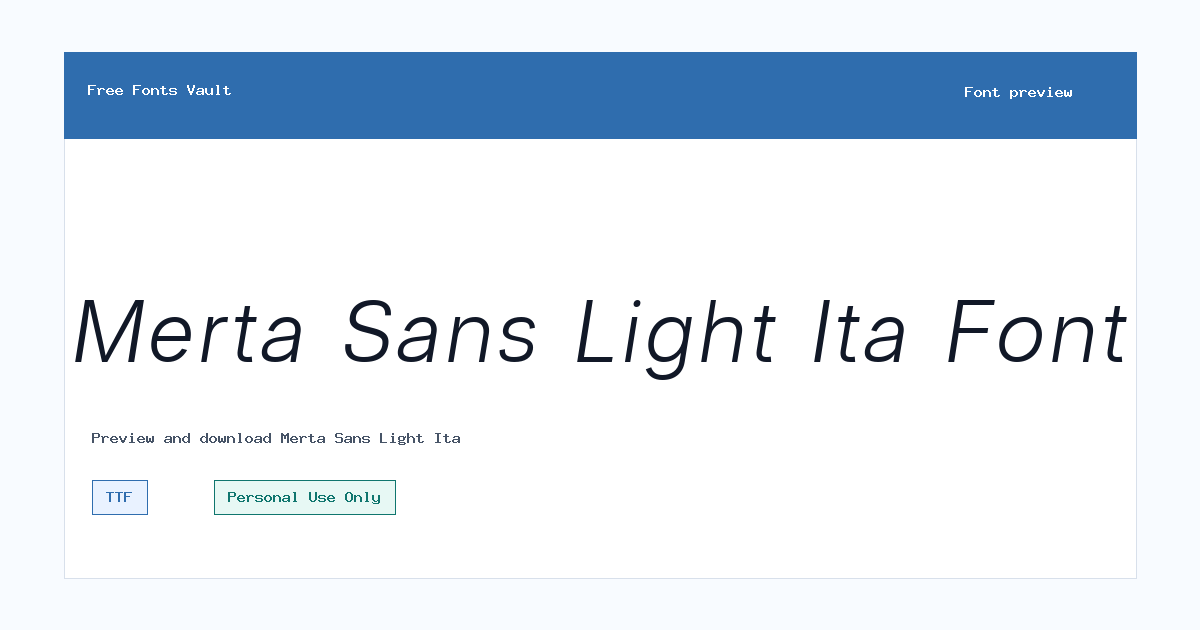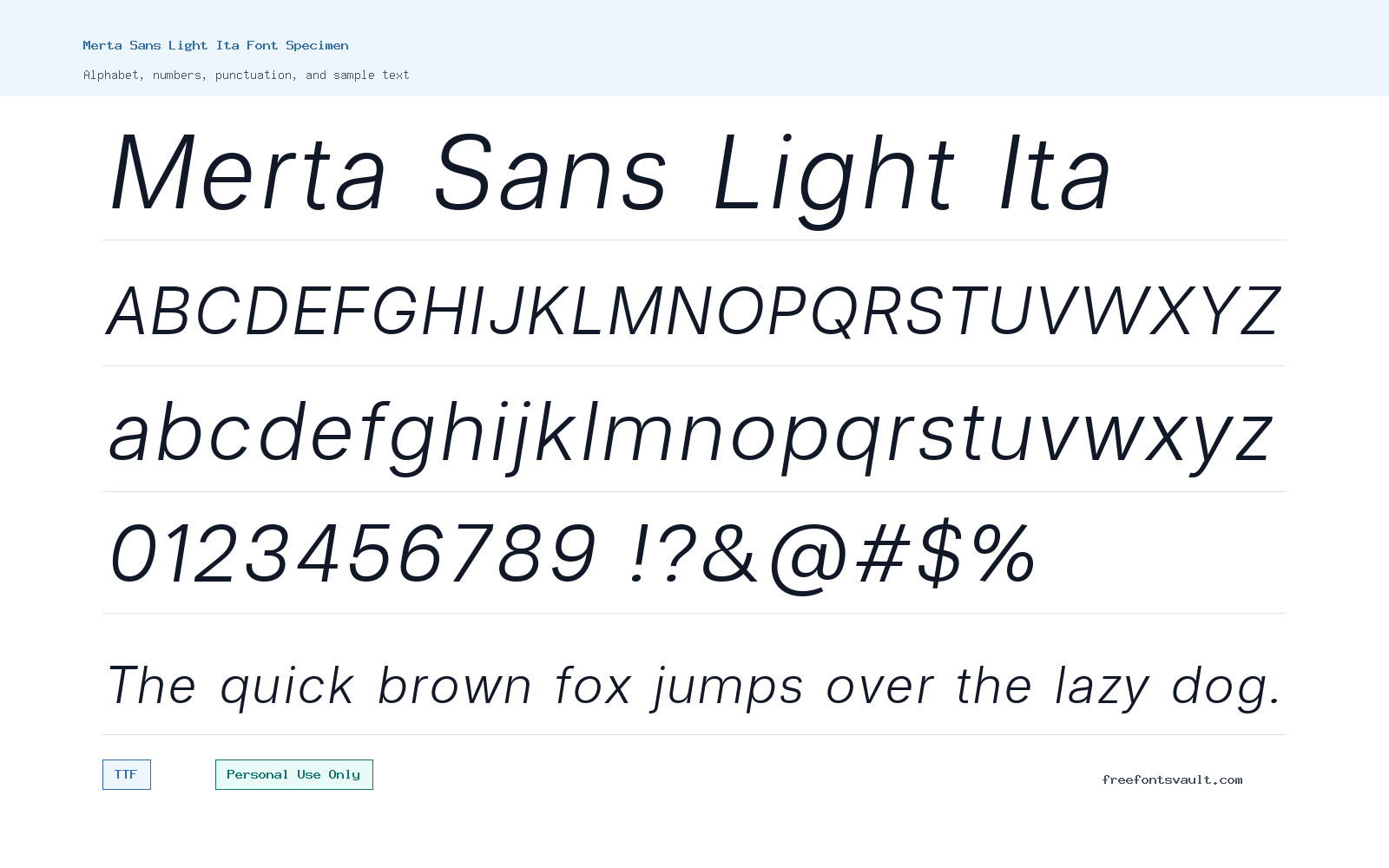
Merta Sans Light Ita
- Designer Diki Pradipta Tri Atmojo
- Foundry Lettertype Studio Co.
Merta Sans Light Ita is a light italic sans serif font with a clean, slanted look that works well when you need a softer, more refined text style for personal design projects.
About Merta Sans Light Ita
Merta Sans Light Ita is the light italic style from the Merta Sans Serif Font Family. Its thin weight and italic angle give it a calm, polished feel without making the letterforms look overly decorative. Because it is a sans serif, the overall structure stays simple and modern, while the italic style adds movement. That makes it useful for short headings, accent text, captions, quotes, signature-style details, and display lines where a regular upright font might feel too plain.
This font is best tested in the preview tool with real words from your project. Light italic fonts can look elegant in large sizes, but they may become harder to read when used too small, placed over busy images, or set in long paragraphs. Try it for poster subtitles, fashion-style layouts, personal branding mockups, web hero text, social graphics, invitation concepts, and logo experiments. For logo work, use it as a starting point and check spacing carefully, especially around narrow letters and angled strokes. If you plan to pair it with another font, a stronger upright sans serif or a simple serif can help balance the light italic style.
For web mockups, Merta Sans Light Ita can help show how an interface might look with a lighter editorial accent. It may suit section labels, short pull quotes, product captions, or a soft secondary heading. Avoid relying on it for body copy unless the text is large enough and has plenty of contrast. Thin italic letters often need more breathing room than heavier upright fonts, so test line height, letter spacing, and background contrast before using it in a final design.
- Light 300 weight with an italic sans serif style
- Useful for short display text, captions, quotes, and refined accent typography
- Clean sans serif structure with a slanted, lighter visual tone
- Poster subtitles and soft display headings
- Logo and personal branding mockups
- Web design mockups with editorial accent text
- Quotes, captions, invitations, and social graphics
- Fashion, lifestyle, portfolio, and presentation-style layouts
What kind of font is Merta Sans Light Ita?
It is a light italic sans serif font. The file is marked as weight 300 with an italic style.
What is Merta Sans Light Ita best used for?
It is best for short text such as headings, subtitles, captions, quotes, poster details, social graphics, and logo mockups for personal projects.
Is Merta Sans Light Ita good for body text?
Use it carefully for body text. Its light italic style is easier to read in short lines and larger sizes. For long reading, pair it with a clearer upright font.
Who designed Merta Sans Light Ita?
The font is credited to Diki Pradipta Tri Atmojo, with Lettertype Studio Co. listed as the foundry.